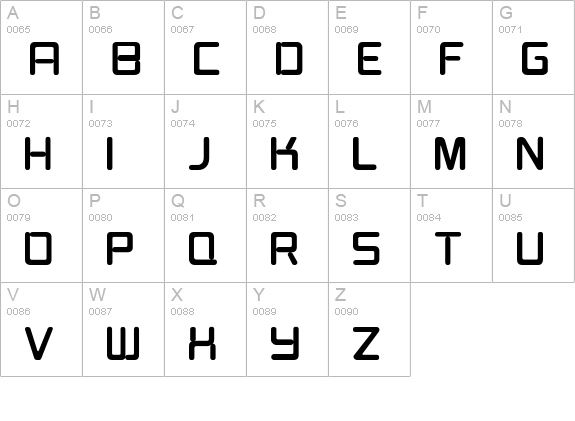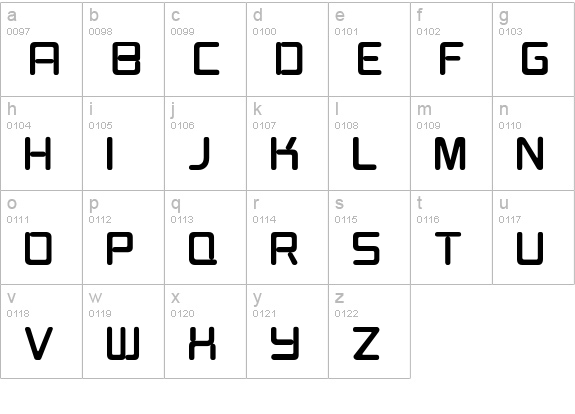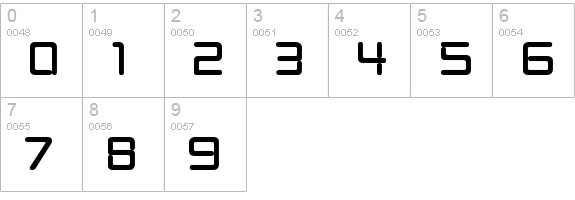
Burger Joint Neon JL Font Details
Burger Joint Neon JL font is a fun and vibrant typeface that perfectly captures the retro aesthetic of classic burger joints. With its bold and eye-catching design, this font is sure to make your designs stand out and grab attention. Whether you're working on a menu, signage, or branding for a restaurant, food truck, or any project that needs a touch of nostalgia, Burger Joint Neon JL font is the perfect choice. And the best part? Burger Joint Neon JL font is available for free download at FontsMarket.com! That's right, you can easily add this unique font to your collection without spending a dime. So why wait? Download Burger Joint Neon JL font today and start creating captivating designs that will leave a lasting impression.